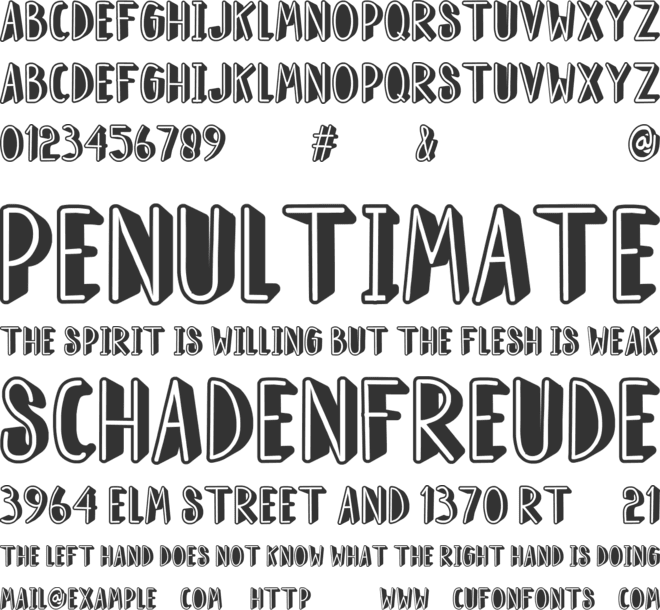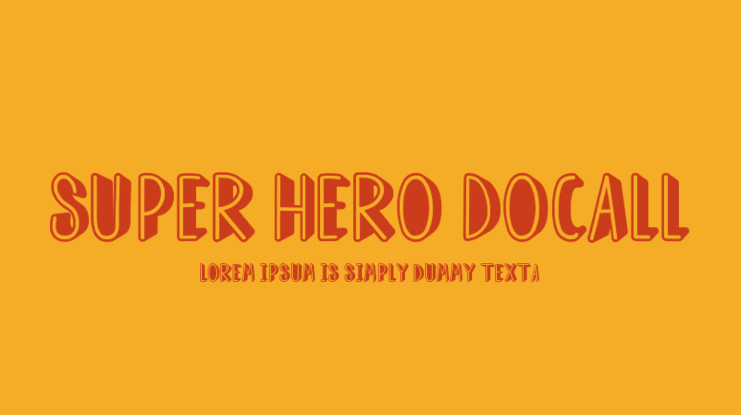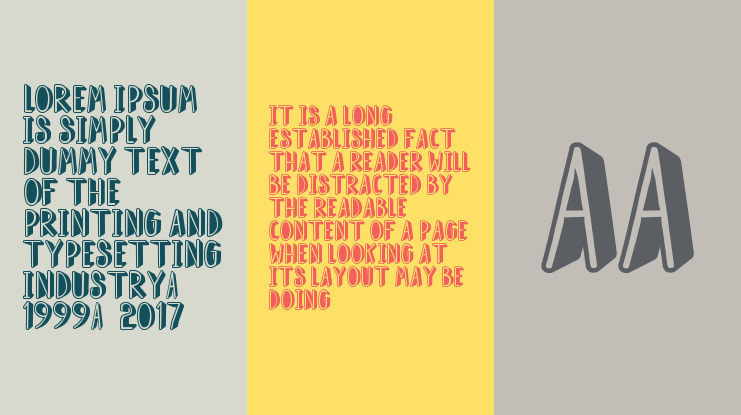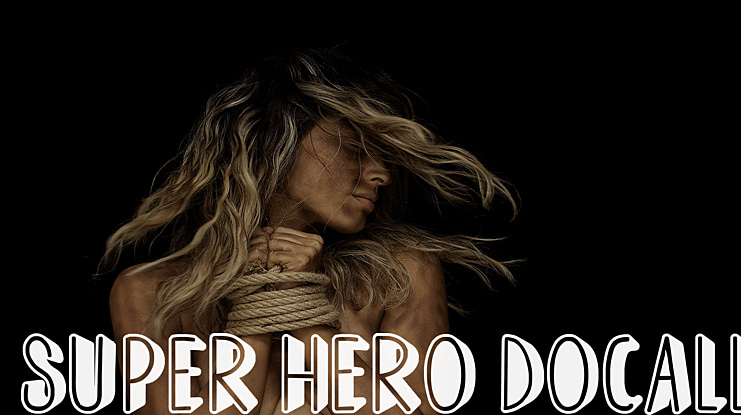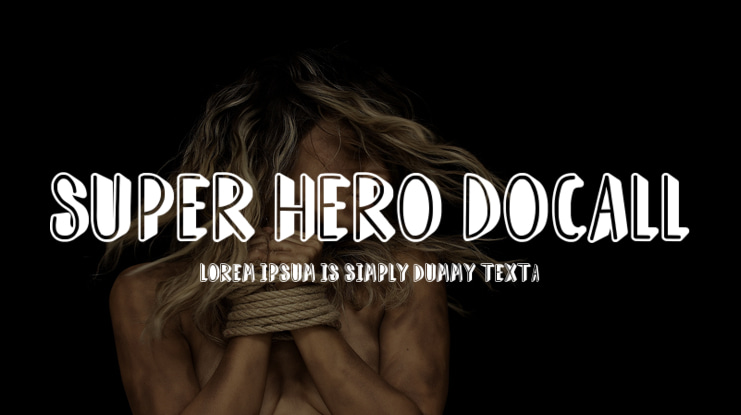
Super Hero Docall Font
Super Hero Docall is a fun display typeface. It will lift your design and add a cheeky touch to each of your creations. Use this font for your designs and explore its endless possibilities.